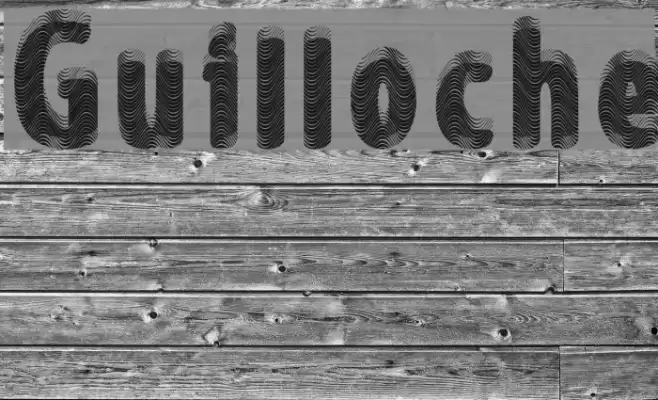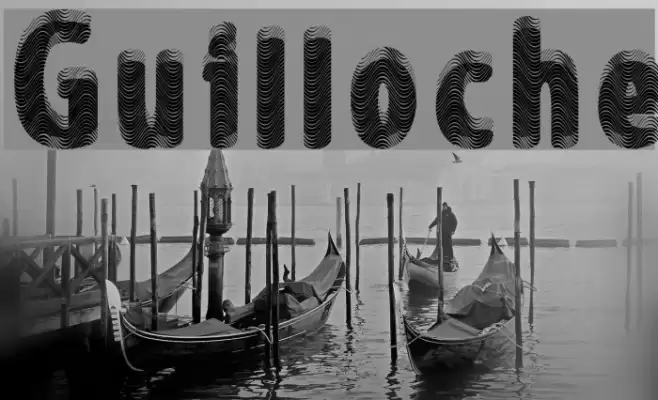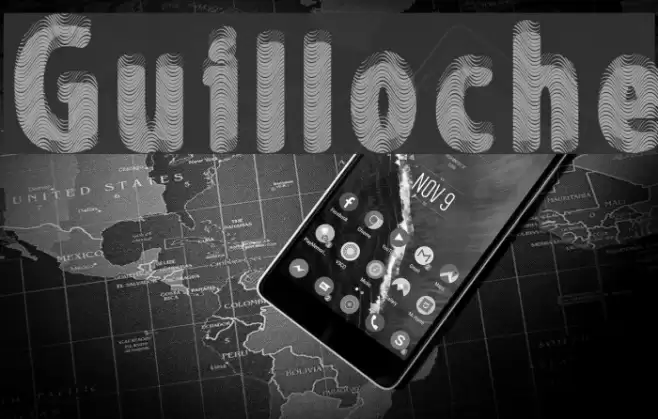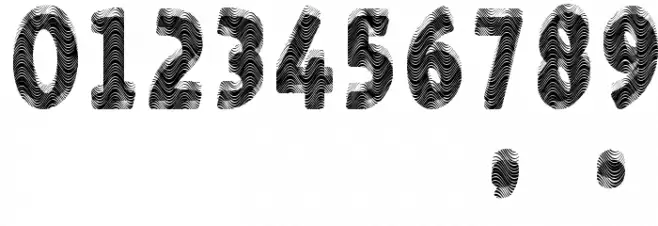
Guilloche Font
Guilloche Description
This font features a unique and intricate design, characterized by its use of guilloche patterns that create a textured, wavy appearance within each character. The letters are bold and rounded, with a decorative style that draws attention. The guilloche effect gives the font a sense of depth and complexity, making it stand out in any design. The uppercase and lowercase letters maintain a consistent style, while the numbers and special characters are equally detailed, ensuring a cohesive look across all text elements.
A bold, decorative font with intricate guilloche patterns from Uncategorized fonts.